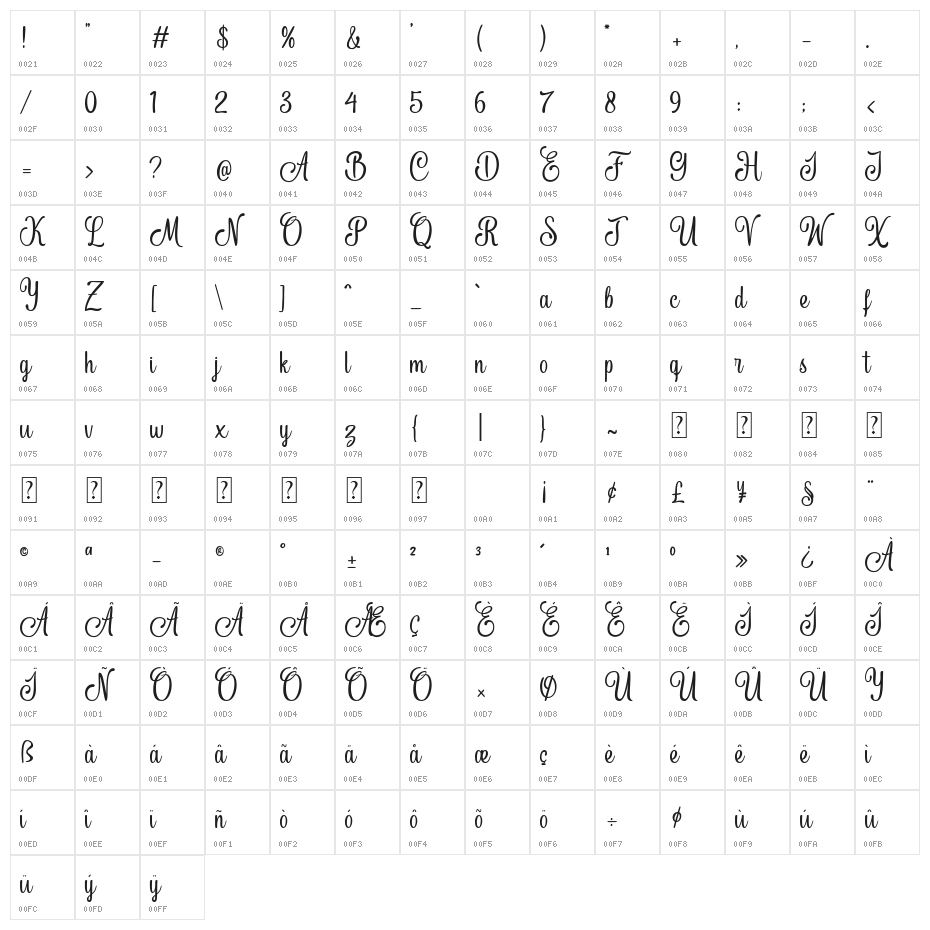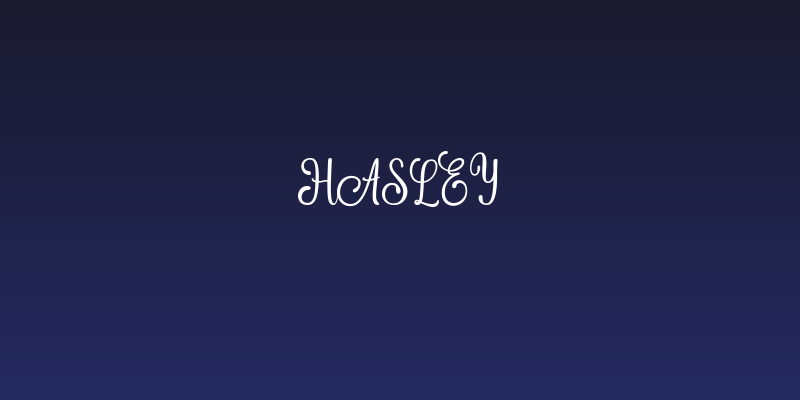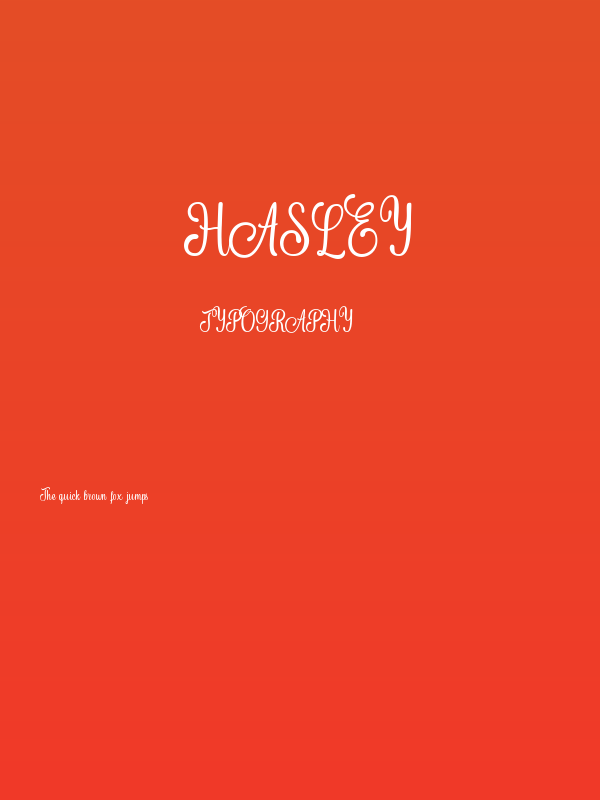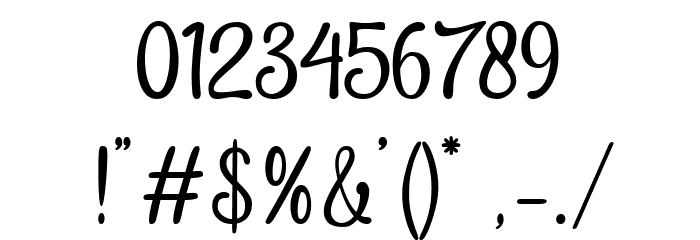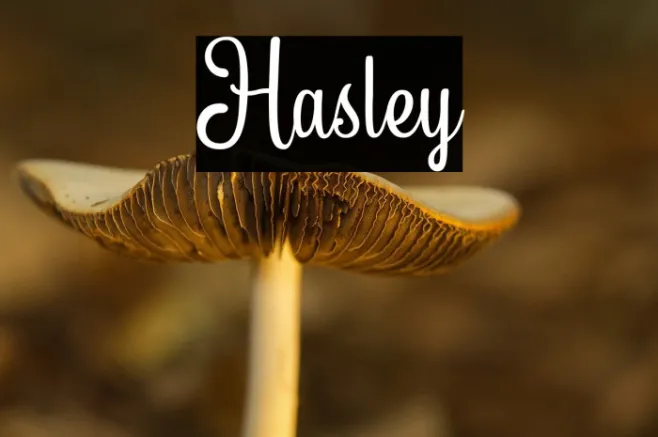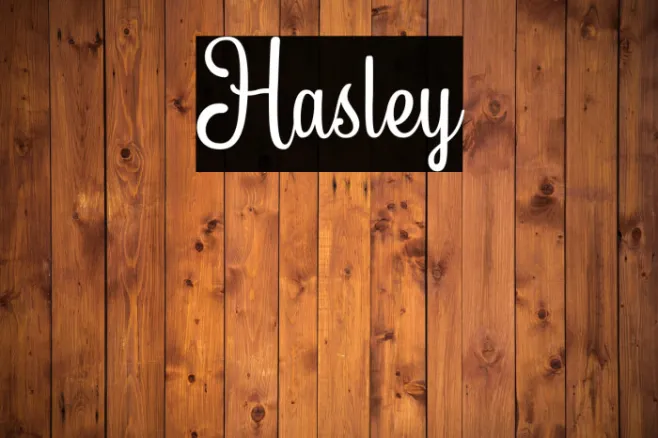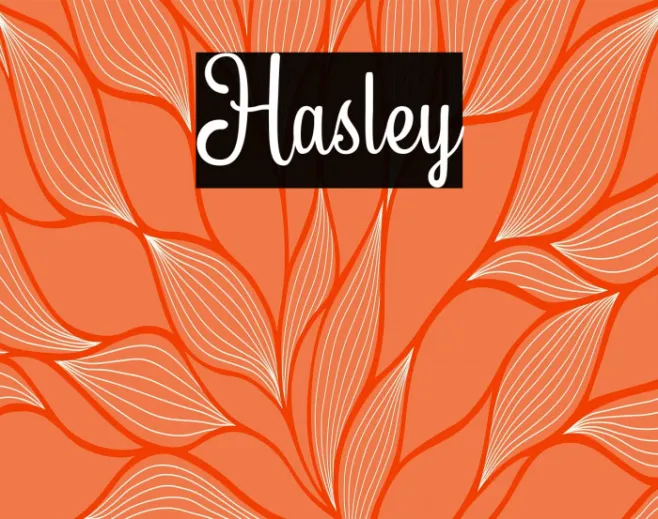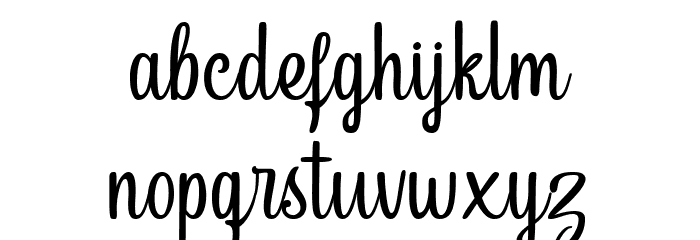
Hasley Font
Hasley Description
This font features a flowing, cursive style with elegant loops and swirls, giving it a sophisticated and artistic appearance. The uppercase letters are particularly ornate, with exaggerated curves and flourishes that add a touch of drama. The lowercase letters maintain a consistent flow, creating a harmonious and connected look. The numerals are clear and easy to read, while the special characters blend seamlessly with the overall design. This font is perfect for projects that require a touch of elegance and creativity.
| Proposed Projects | Ideal for wedding invitations, greeting cards, branding, and artistic projects. |